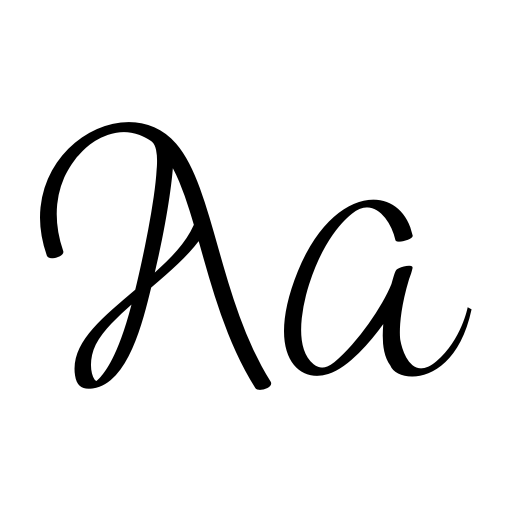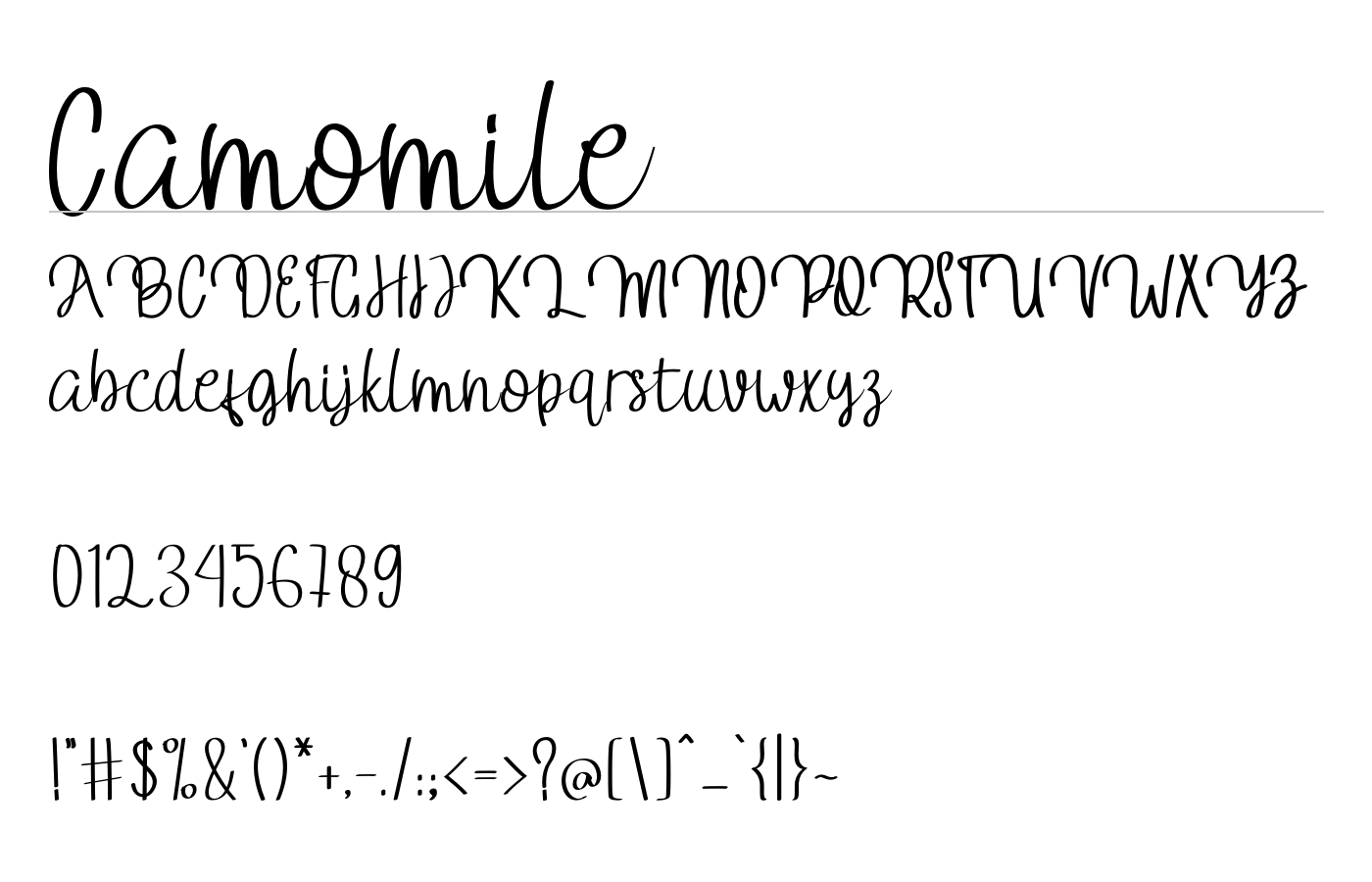
Camomile is a playful, handwritten script font with a light and airy feel, featuring slender strokes and gently curved letterforms that create a casual yet charming look. Its tall, narrow characters and consistent stroke weight make it ideal for adding a friendly, approachable touch to invitations, branding, and packaging where a personal and whimsical style is desired. This font works best in headlines and decorative text, lending an inviting, warm personality without overwhelming the design.
Camomile Font
About Camomile Font